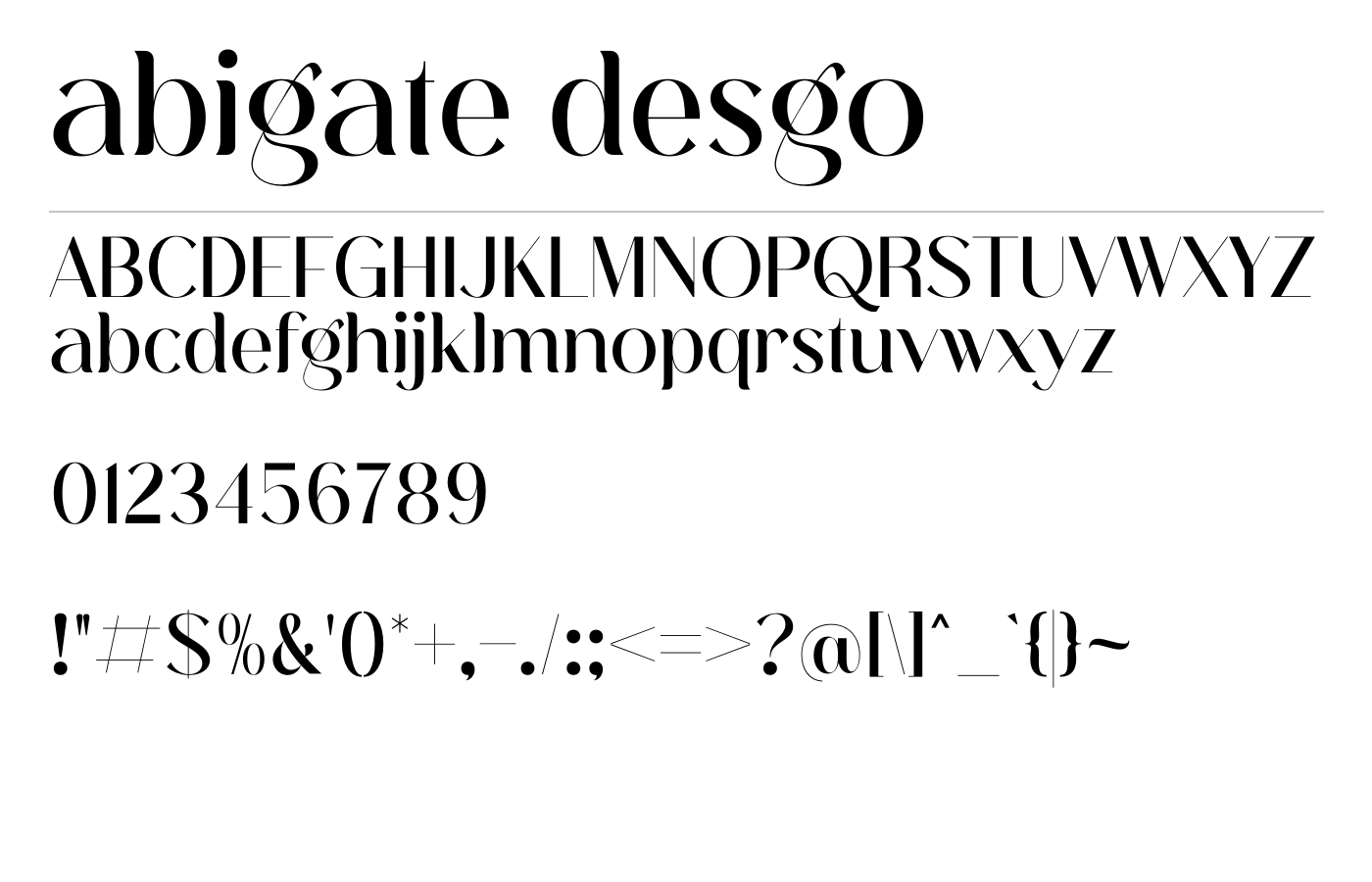
Abigate Desgo is a sophisticated serif font with high contrast between thick and thin strokes, featuring elegant, sharp serifs and distinctive flourishes on letters like "g" and "Q." Its tall, narrow proportions and refined details give it a luxurious, modern feel, making it ideal for fashion branding, editorial headlines, and upscale design projects that seek a stylish and classy look.
abigate desgo Font
About abigate desgo Font